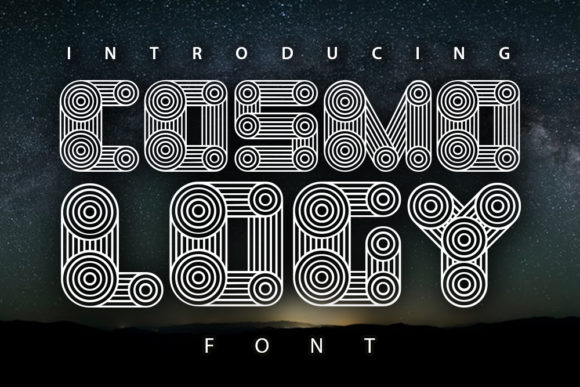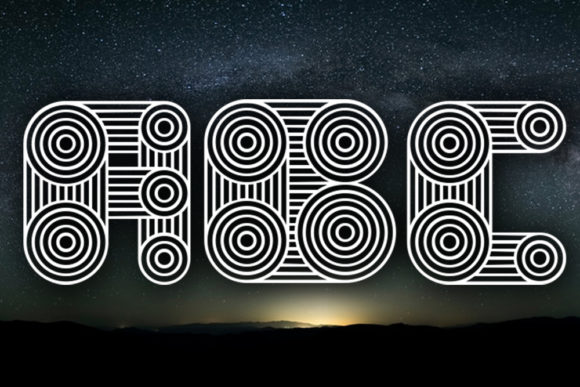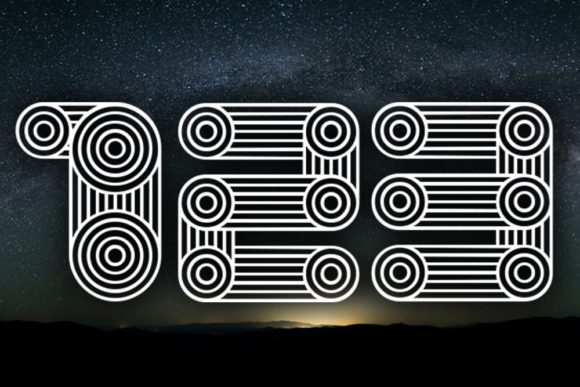
Cosmology Font
About the Cosmology Font
Explore the possibilities with Cosmology Font, a font that offers both beauty and functionality. The Cosmology is an awesome decorative multi-line font. It’s great for posters, various prints, t-shirts and much more.
Cosmology excels as a display typeface, ideal for headlines, posters, and short impactful statements in branding materials. Its decorative nature makes it perfect for eye-catching titles or logos where readability over extensive text is prioritized. Avoid using it for body copy or UI elements; its intricate details would hinder legibility in smaller sizes or continuous text.
The font possesses a bold and slightly rebellious personality. It’s well-suited for brands aiming for a strong, memorable visual identity, perhaps in the music, fashion, or entertainment industries. Consider pairing it with a clean sans-serif like Helvetica Neue for contrast, or a more geometric sans-serif like Futura for a modern, streamlined aesthetic.
For a softer contrast, a simple serif like Garamond could work well, balancing Cosmology’s strong lines with a touch of classic elegance. Avoid pairing it with other highly decorative fonts, which would create visual clutter and reduce impact.
Cosmology Font Usage Examples
Cosmology Font Example